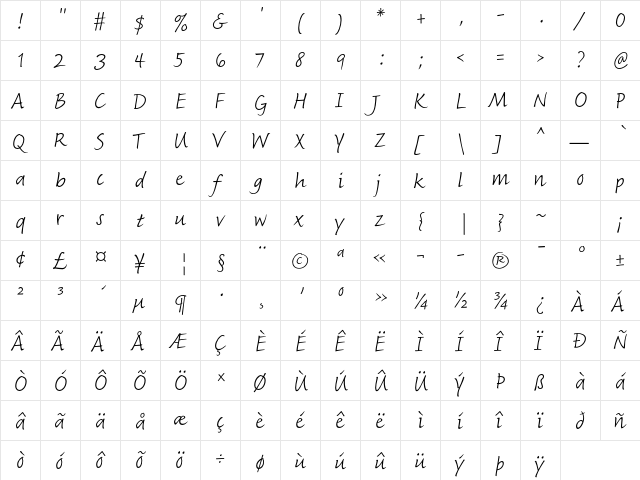
Fineprint Std Light
Design Context for Fineprint Std Typeface
Fineprint Std is a composed and adaptable typeface that performs quietly and consistently across a wide range of design contexts. The delicate stroke weight brings airiness and refinement to layouts.